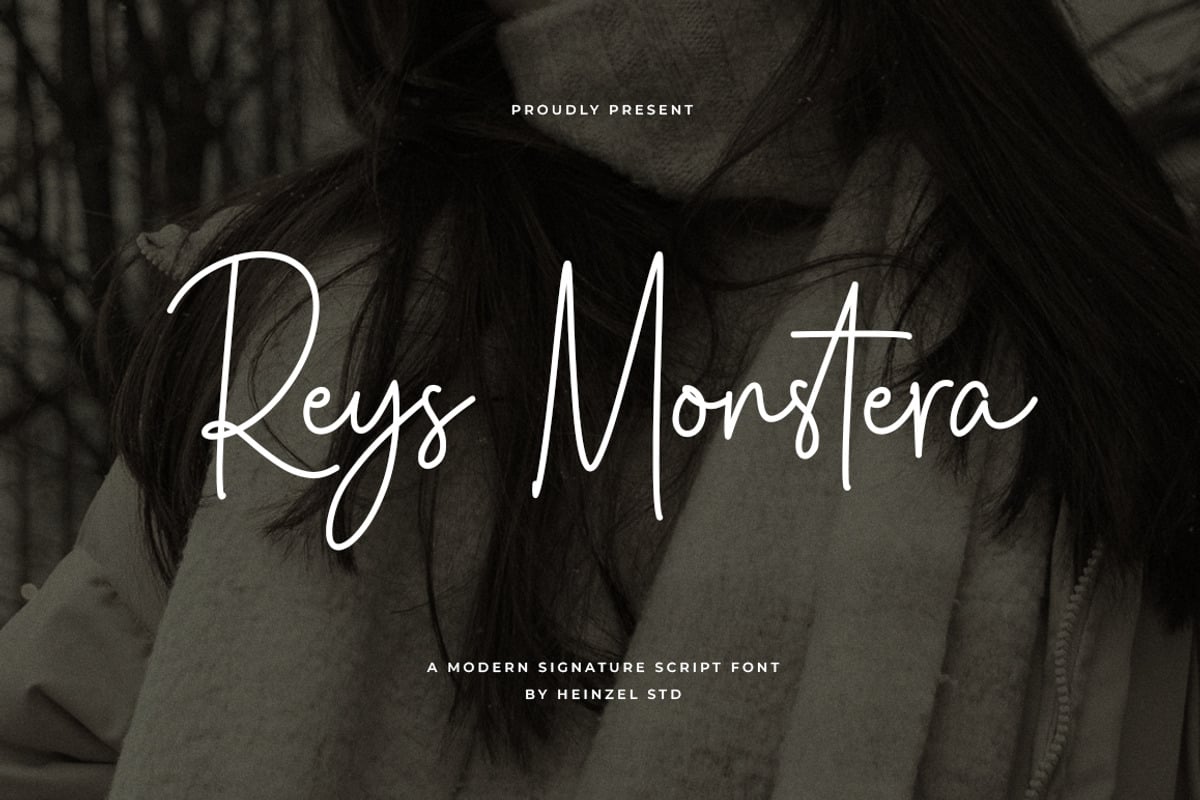
Reys Monstera | Signature Font
Reys Monstera is the elegant signature script font your most beautiful projects have been waiting for.
With a timeless handwritten aesthetic and incredibly distinct style, this modern typeface brings sophistication to any design it touches. Whether you're crafting wedding invitations, thank you cards, greeting cards, or social media posts, Reys Monstera delivers a stunning, personal touch that stands out.
Perfect for:
- Wedding invitations & stationery
- Logos & business cards
- Quotes & greeting cards
- Social media posts & marketing materials
- Any design calling for an elegant handwritten feel
Font Features:
- Uppercase and Lowercase characters
- Numerals and Punctuation
- Multilingual language support (21 languages including English, French, German, Spanish, Italian, Portuguese, Dutch, and more)